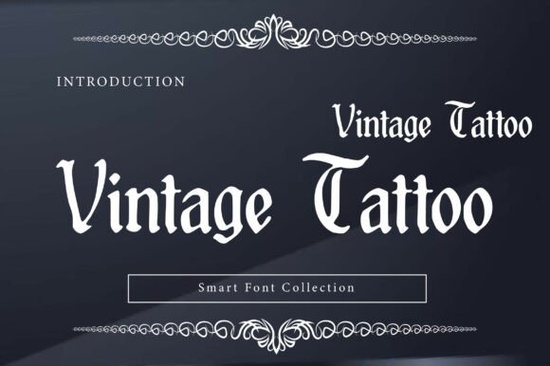
If you are looking for a typeface that carries the raw, rebellious energy of old-school flash art, the Vintage Tattoo font might be exactly what you need. This design pulls directly from early 20th-century tattoo parlor aesthetics, giving your projects a weathered, historical weight. It is not just another standard script; it is a bold, blocky blackletter built to make a strong visual statement.
What makes this specific blackletter style stand out?
Many traditional gothic typefaces focus on elegance and intricate swirls. This typeface takes a different route by focusing on sharp, aggressive angles and a very sturdy baseline. It commands attention immediately. The letters look like they were physically carved into wood or stamped onto leather, rather than just typed on a screen. This gives your headlines a gritty, timeless aesthetic that feels authentic and deeply rooted in traditional American flash art history.
What kind of projects work best with this lettering?
Because of its heavy, masculine presence, this typeface is highly versatile for specific niches. If you are a print-on-demand seller, it works beautifully on graphic tees, posters, and stickers aimed at the biker community or rock music fans. Small businesses can use it to create strong brand identities. It is particularly effective for:
- Motorcycle club logos and merchandise that need a tough, unified look.
- Heavy metal or rock album covers that require an edgy, aggressive visual tone.
- Masculine grooming products like beard oil, pomade, or soap packaging.
- Barber shop signage and vintage-style promotional materials.
When you are browsing through the traditional gothic lettering collection, keep in mind that this specific design leans heavily into that rugged, historical vibe rather than a clean, modern minimalist approach.
How should I pair it with other typefaces?
Since the main lettering is so bold and detailed, you need to give it room to breathe. Pairing it with another heavy or decorative font will make your design look cluttered and hard to read. Instead, use a clean, simple sans-serif for your secondary text and body copy. Fonts with uniform stroke widths and open counters will balance the visual weight of the main headline. This contrast ensures that your primary message remains the focal point while the supporting text stays highly legible.
Is it suitable for long paragraphs of text?
No, and it is important to understand its limitations. This is strictly a display typeface. The sharp angles and dense letterforms make it incredibly striking at large sizes, but they will quickly cause eye strain if used for small body text. Stick to using it for short headlines, logos, quotes, or single-word emphasis. For your paragraphs, terms and conditions, or detailed product descriptions, always choose a highly readable, lightweight alternative.
How can I make the most of its weathered look?
The natural texture of the letters is a major selling point, but you can enhance it further in your design software. Try adding a slight drop shadow to give the text a physical, embossed feel, which works great for apparel designs. You can also experiment with distressing the edges slightly more if you want a heavily worn, vintage poster look. Just be careful not to overdo the effects, as the base design already has plenty of character built in. If you are printing on dark fabrics, consider using a slightly off-white or cream color for the text to maintain that authentic, aged flash art feel without the harshness of pure white.
Quick checklist for your next design project:
- Use this typeface only for headlines, logos, or short phrases.
- Pair it with a simple, clean sans-serif for all body text.
- Apply it to niches that benefit from a rugged, historical, or rebellious tone.
- Test your design in black and white first to ensure the contrast is strong enough before adding colors.
- Keep the background simple so the intricate angles of the letters remain the main focus.